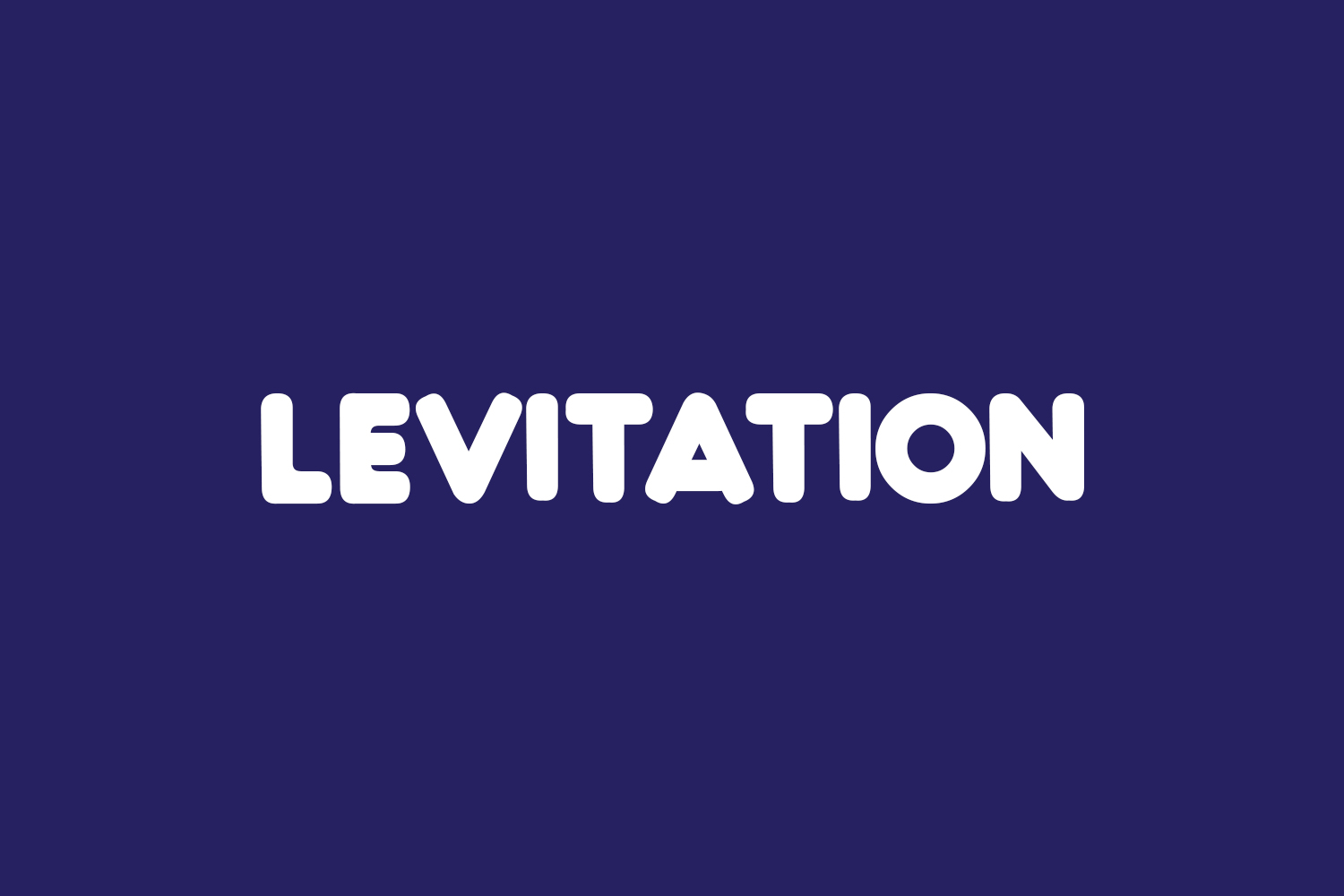
Levitation Free Font is a daring and powerful typeface that commands attention with its bold display. As if defying gravity, each letter appears to hover weightlessly on the page, exuding a sense of otherworldly mystique. With Levitation, your designs will soar to new heights, leaving a lasting impression on any viewer lucky enough to witness its spellbinding effect. Get ready to elevate your projects with this stunning and mesmerizing font!